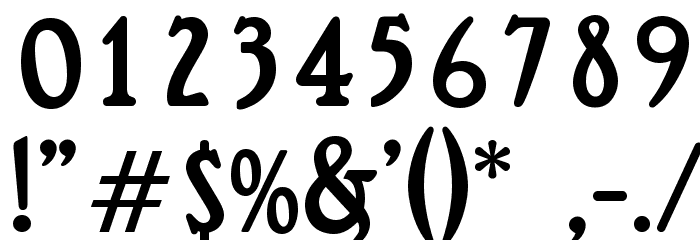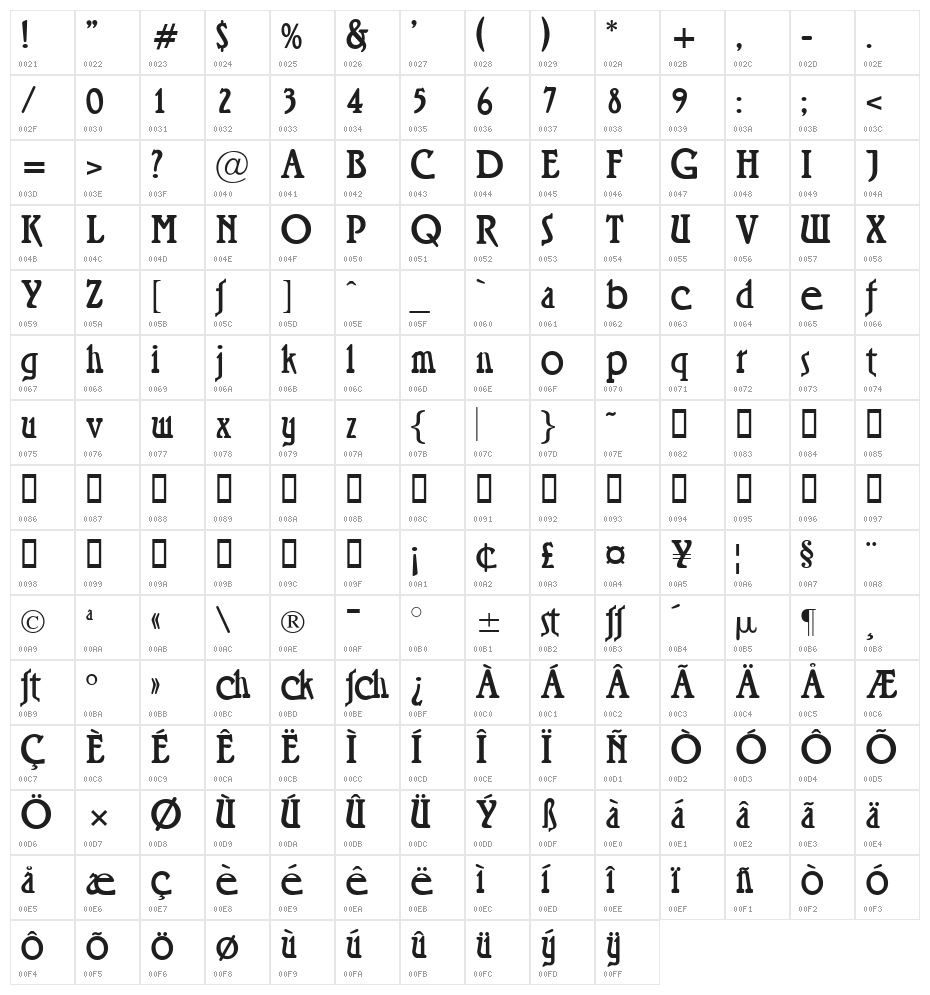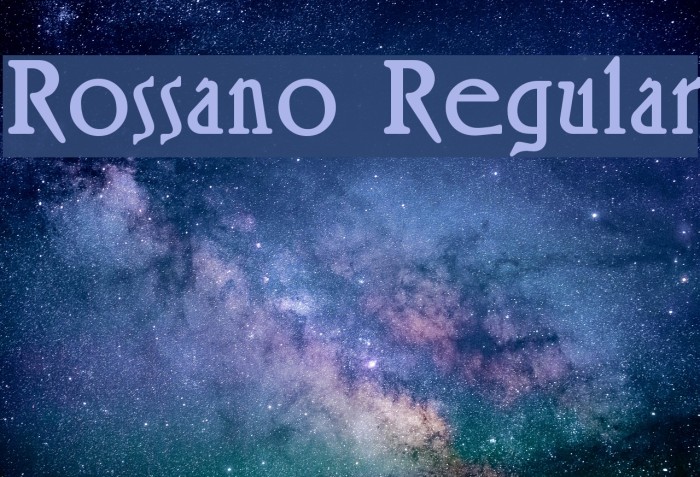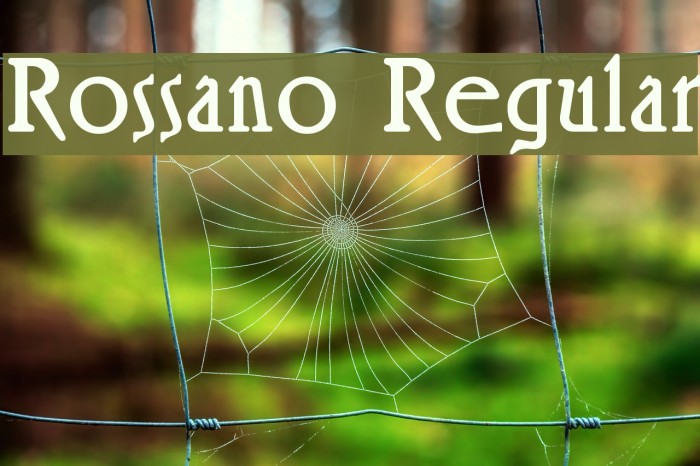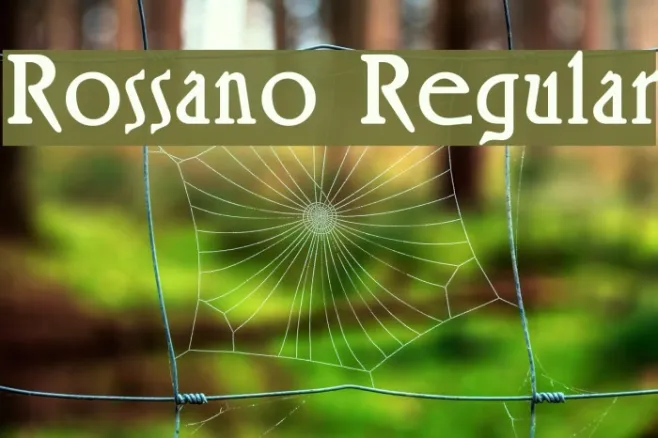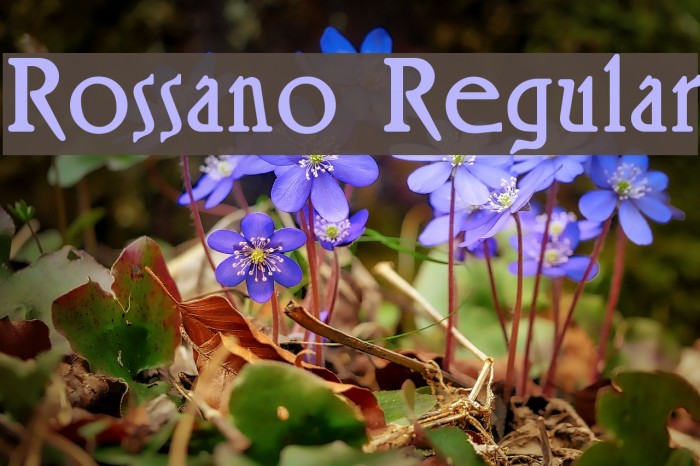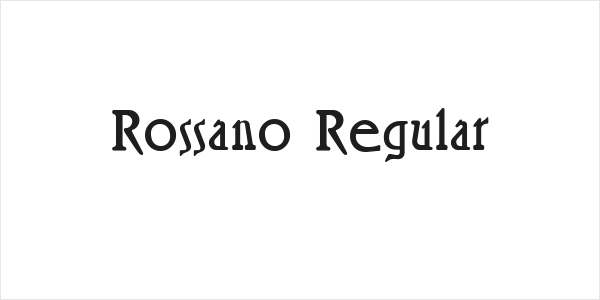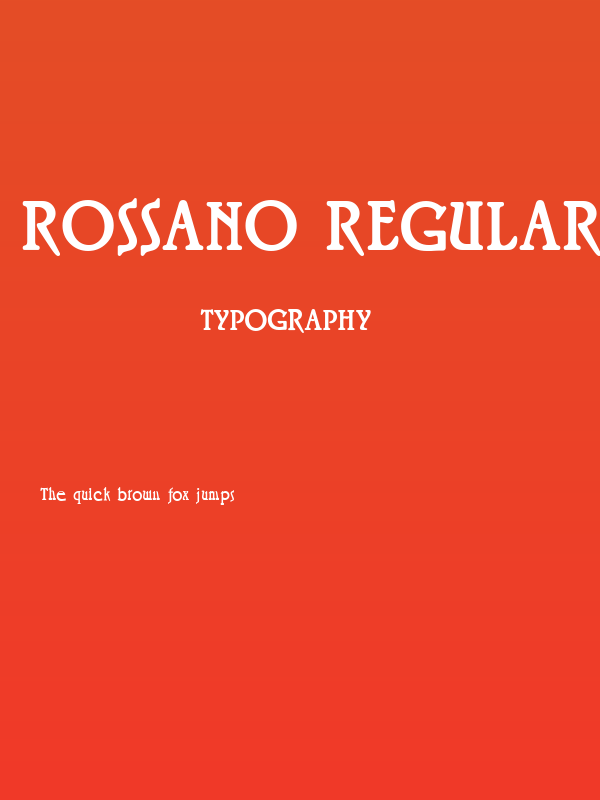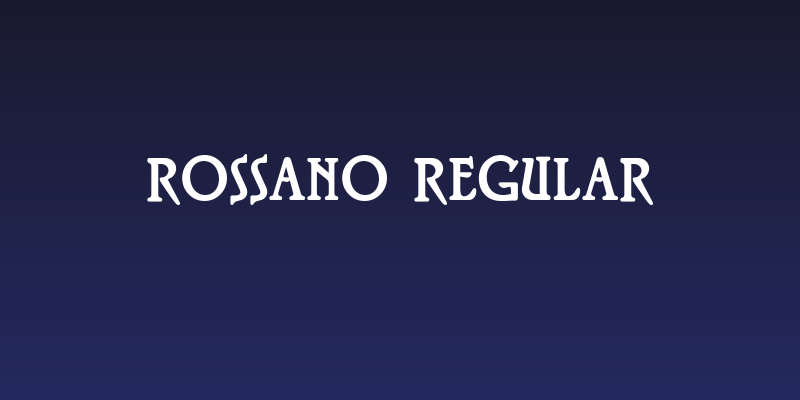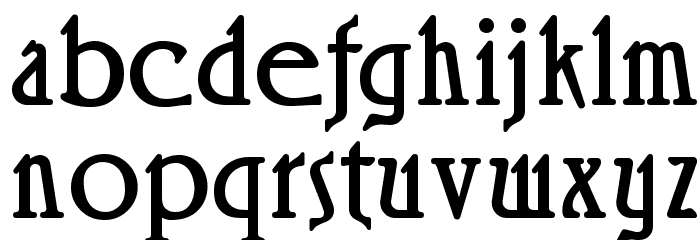
Rossano Regular Font
Rossano Regular Description
This font features a unique blend of classic and modern elements, characterized by its bold and slightly condensed letterforms. The uppercase letters exhibit a strong presence with distinct serifs, while the lowercase letters maintain a consistent flow with subtle curves. The numerals are well-proportioned, ensuring readability. Special characters are designed with attention to detail, complementing the overall aesthetic. The font's style is versatile, making it suitable for various design applications.
Overall StyleClassic
Proposed ProjectsIdeal for branding, editorial design, book covers, and poster headlines.